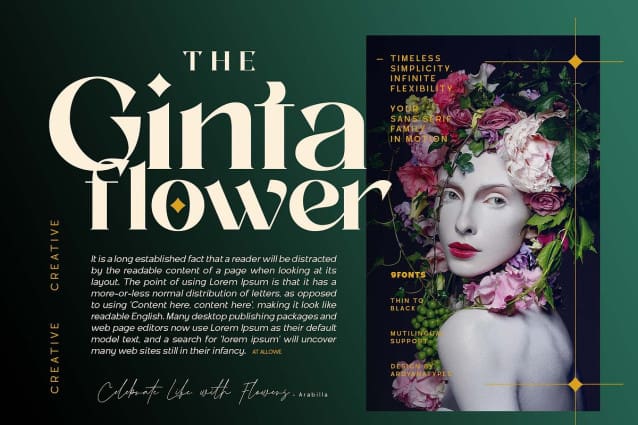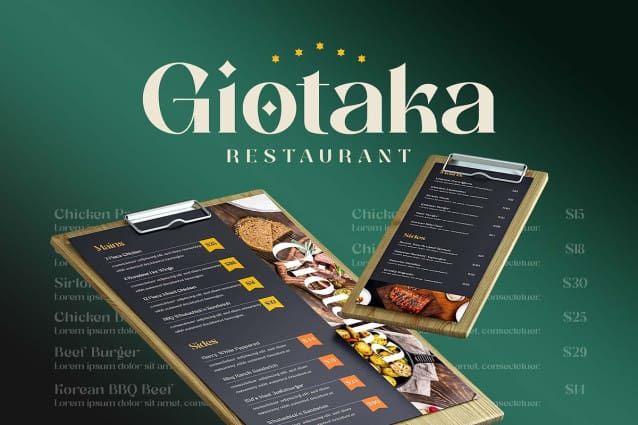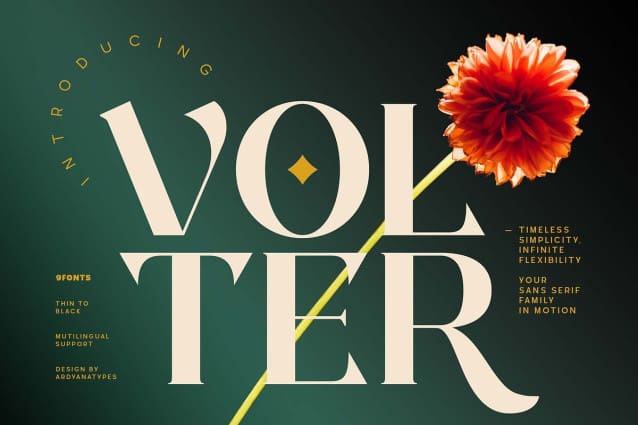
Volter Font
Volter Font is a serif font family that blends classic elegance with modern flexibility. Designed with precision, Volter offers 9 different styles, ranging from Thin to Black, giving designers the freedom to create unique and character-rich works.
With clean letterforms, balanced proportions, and subtle serif-inspired details, Volter is perfect for branding, editorial design, packaging, and UI/UX. This font also supports multilingual compatibility, ensuring seamless use across various global languages.